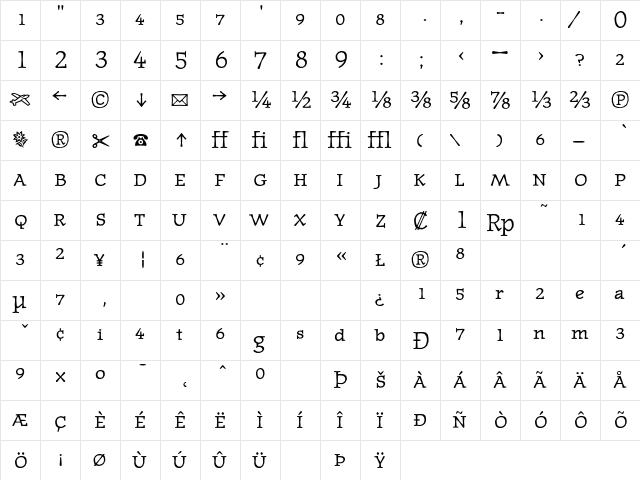
JournalTextFractions Regular
Design Context for JournalTextFractions Typeface
JournalTextFractions is a composed and adaptable typeface that performs quietly and consistently across a wide range of design contexts.